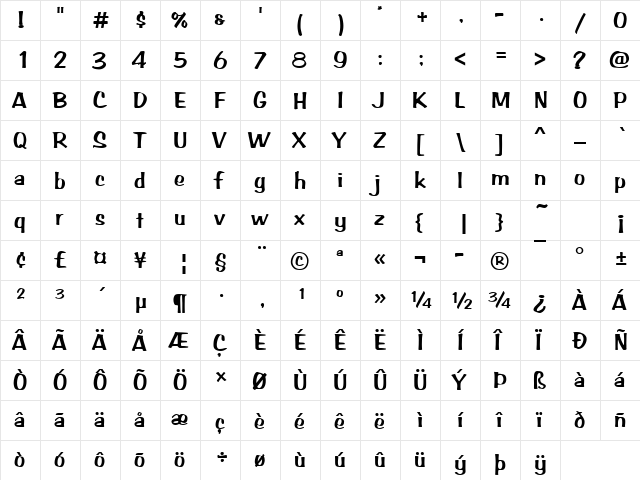
ArabBruD Regular
Design Context for ArabBruD Typeface
ArabBruD is a composed and adaptable typeface that performs quietly and consistently across a wide range of design contexts.